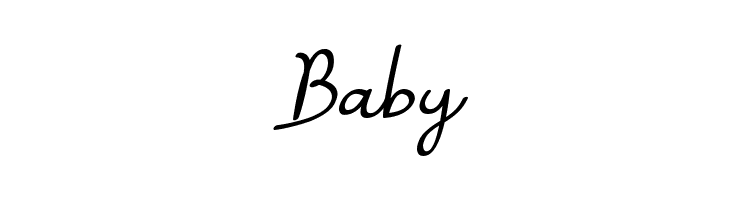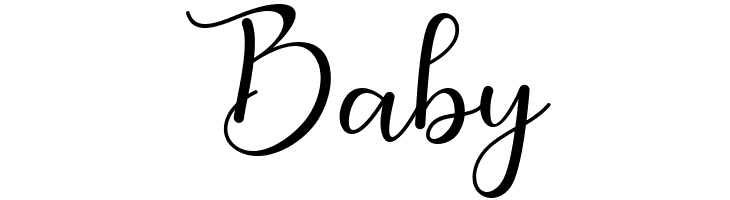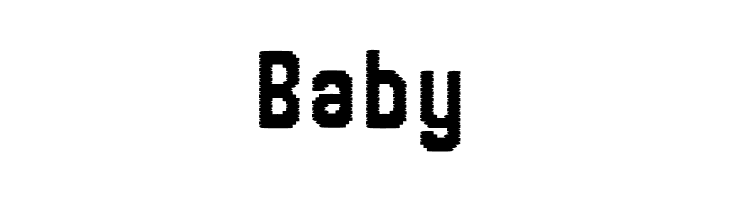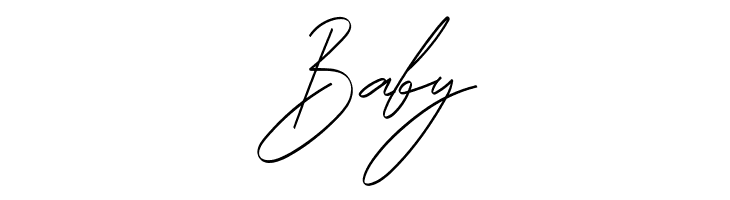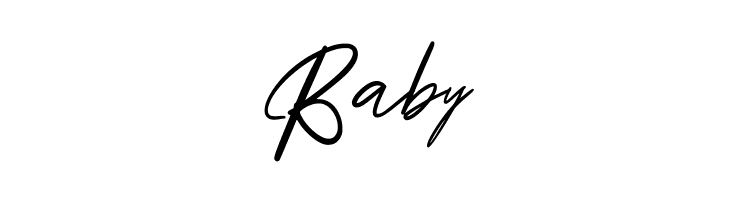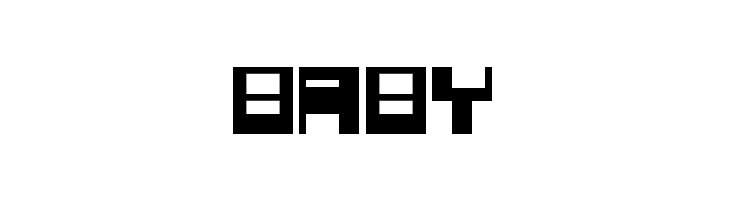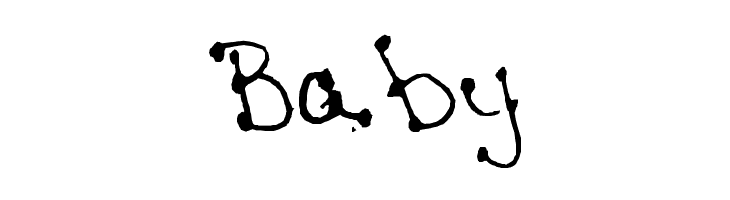
Expressive handwritten script font.
A playful, handwritten font with a casual and dynamic style.
A bold, handwritten font with a lively and personal style.
A bold, expressive handwritten font with flowing, ink-like strokes.
A playful and elegant script font with a handwritten style.
A fluid, elegant handwritten font with thin, elongated strokes.
A fluid, handwritten-style font with a casual elegance.
A bold, pixelated font with a retro digital style.